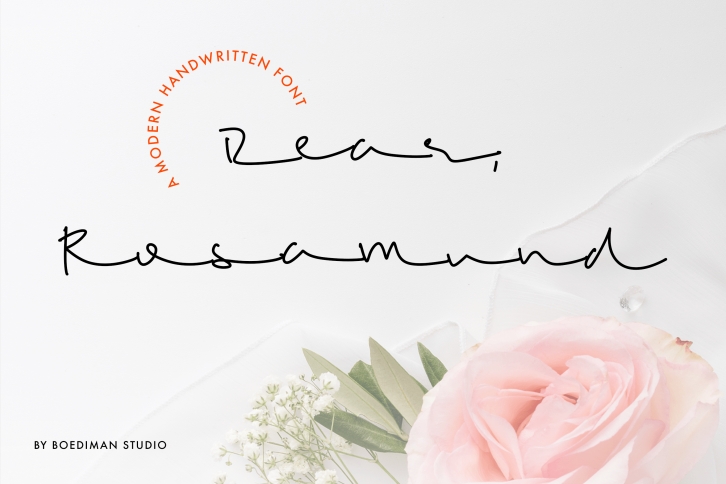
Rosamund FONT Download
Rosamund is a modern script font that brings a romantic feel. It looks stunning on wedding invitations, thank you cards, quotes, greeting cards, logos, business cards and every other design which needs a handwritten touch.